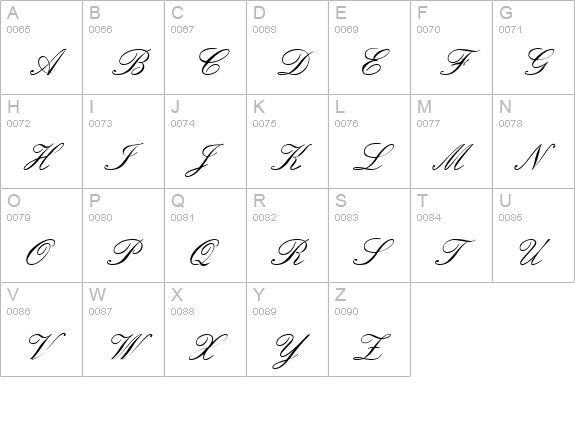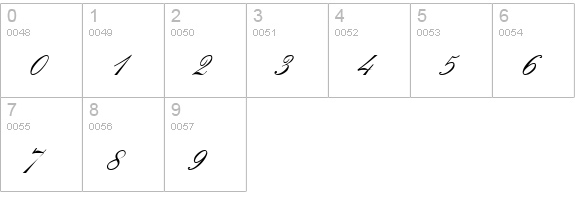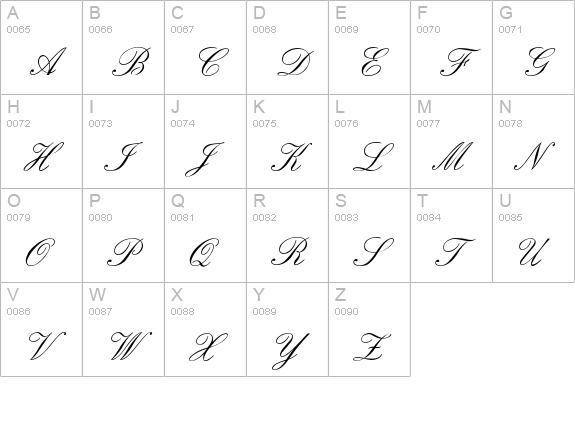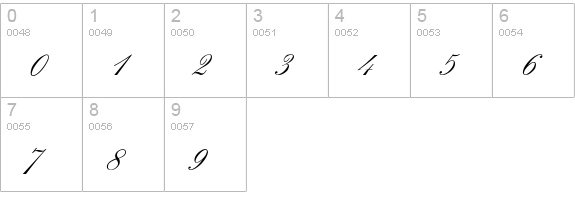
Formal Script Font Details
Introducing the elegant and sophisticated Formal Script font, a timeless typeface that exudes refinement and class. With its graceful flourishes and intricate detailing, this font is perfect for adding a touch of luxury to any design project. Whether you're creating wedding invitations, branding materials, or elegant packaging, Formal Script is sure to make a lasting impression. What's even better is that this exquisite font is available for free download at FontsMarket.com. Now you can elevate your designs with this premium typeface without breaking the bank. Don't miss out on the opportunity to enhance your projects with the beauty and charm of Formal Script. Download it today and let your creativity soar.